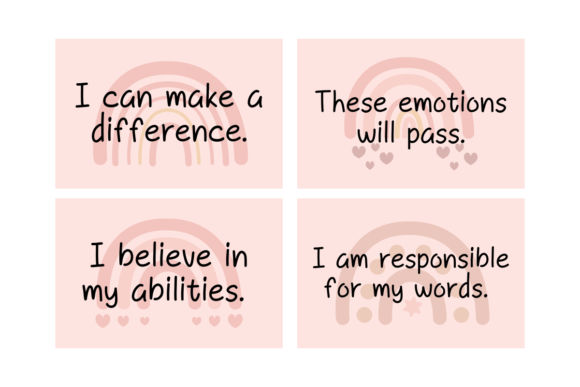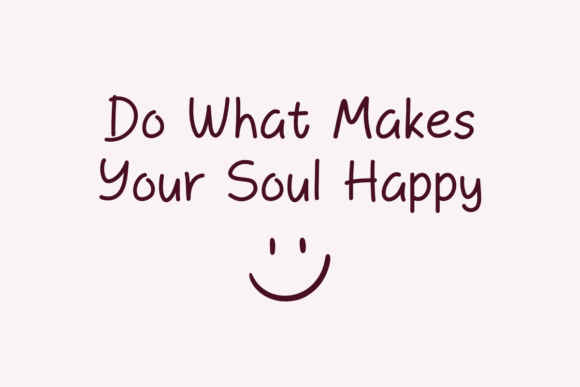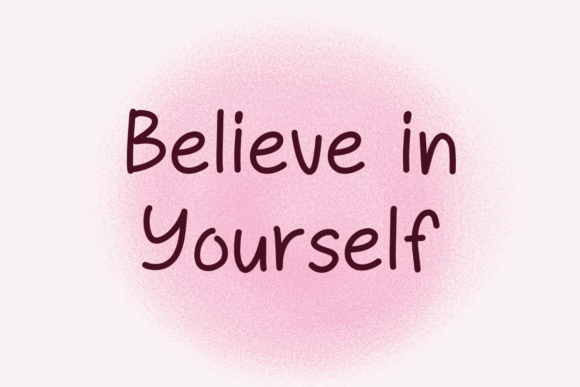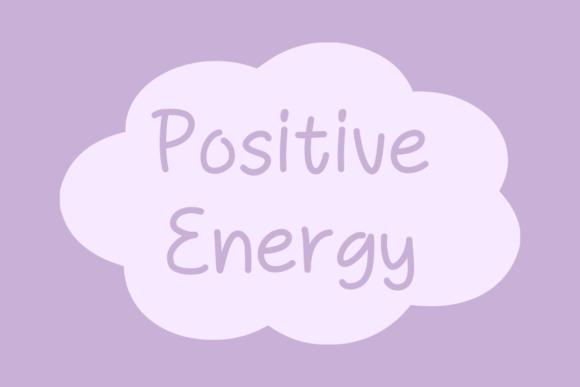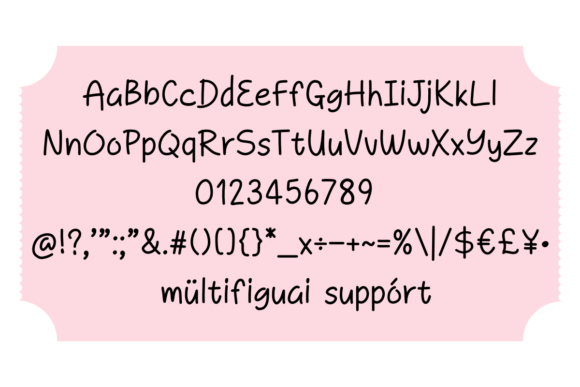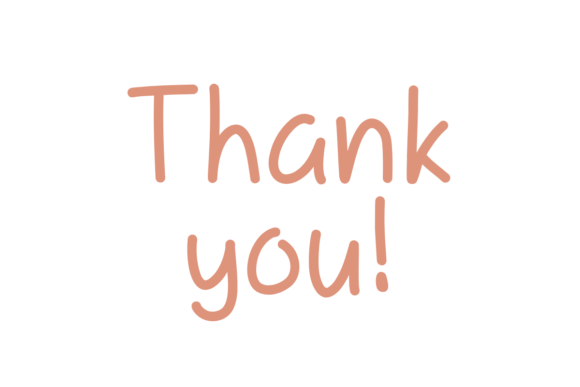
Get Ready to Shine with the Bright Lights Font
Have you ever found yourself stuck in a creative rut, staring blankly at a blank canvas or screen, wondering what’s missing? Maybe it’s the perfect font to add a touch of whimsy and personality to your project. For designers and crafty folks alike, finding that special font can be the game-changer that takes your work from meh to mesmerizing.
Enter the Bright Lights Font, a charming and playful handwritten script font designed to add a pop of fun to any project. Whether you’re working on a digital design, creating a presentation, or making a handmade greeting card, this font has the potential to become your new go-to. Its versatility and charm make it a valuable addition to any designer’s toolkit.
Bright Lights Font Key Features
- Font Family: Bright Lights Font is a unique, custom-designed font family available in several styles, including Regular, Italic, Bold, and Bold Italic.
- Character Set: Bright Lights Font contains a comprehensive set of characters, including uppercase and lowercase letters, numbers, punctuation marks, and special characters.
- Size and Resolution: The font is designed to work well at various sizes and resolutions, including small text sizes and high-resolution displays.
- Unique Characteristics: Bright Lights Font features a distinctive, hand-crafted design with subtle texture and imperfections, giving it a unique, artistic feel.
Bright Lights Font Review
Overall, I think the Bright Lights Font has some great qualities, but also a few limitations. Let’s dive in!
- Unique and eye-catching design: The font is definitely one-of-a-kind and can add a touch of personality to any project.
- Perfect for creative and artistic projects: The bold, playful feel of the font makes it ideal for designing posters, social media graphics, or other creative materials.
- Good legibility: Despite its bold appearance, the font is still relatively easy to read, especially at larger sizes.
- Not suitable for body text: The font is a bit too bold and attention-grabbing for everyday body text, and can be overwhelming when used extensively.
- Limited font sizes: While the font looks great at larger sizes, it can become distorted or hard to read at smaller sizes.
- May not be suitable for professional or formal projects: The font’s playful, creative feel may not be suitable for more formal or professional projects, such as business reports or academic papers.
I think the Bright Lights Font is a great addition to any designer’s toolkit, but it’s essential to use it judiciously and in the right context. With its unique design and good legibility, it’s perfect for creative and artistic projects, but may not be the best choice for everyday body text or formal projects.
To get the most out of “Bright Lights Font,” use it for:
- Product branding and logos
- Social media graphics and ads
For best results, use “Bright Lights Font” with bold and bright colors to make your design stand out.